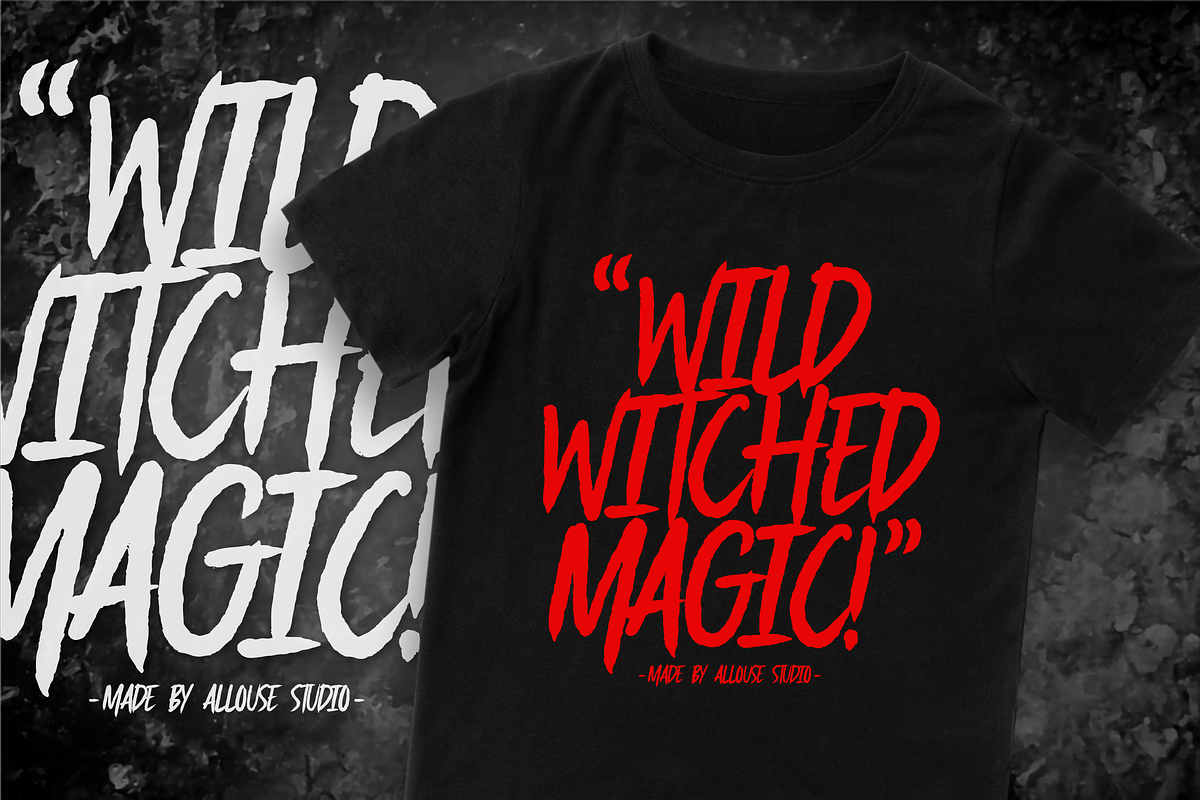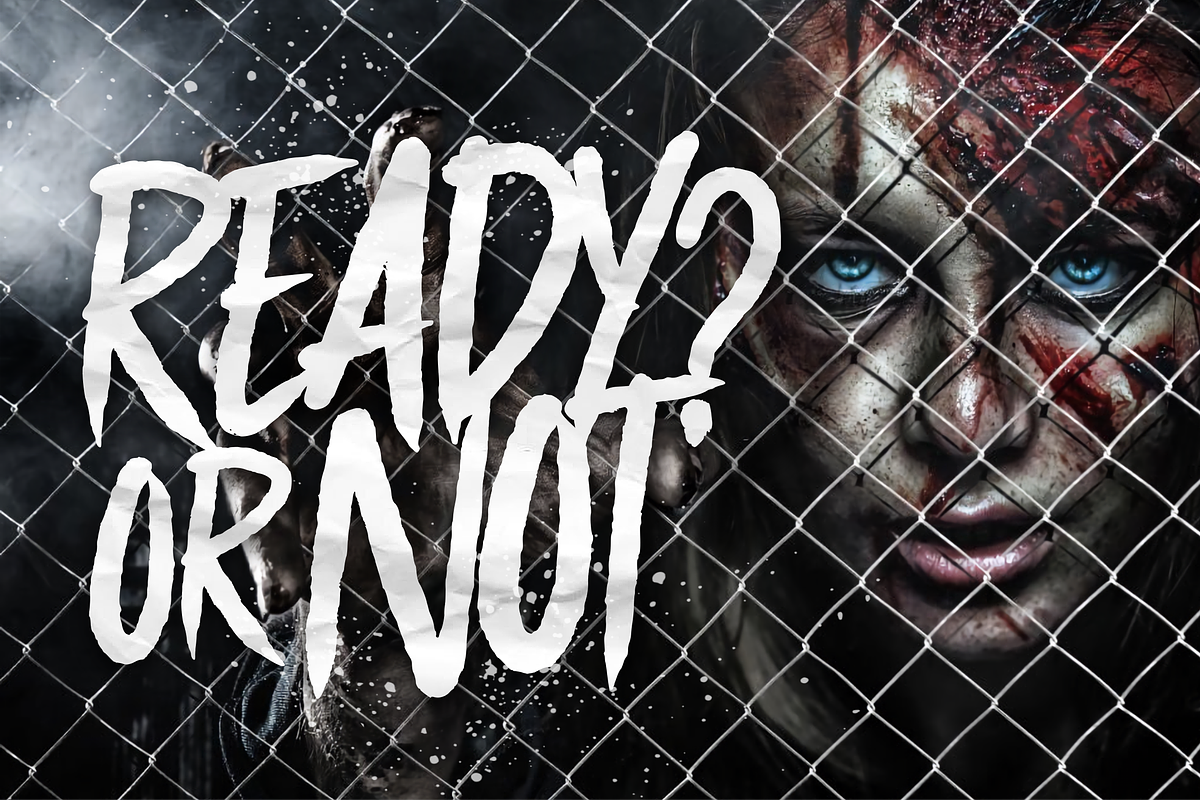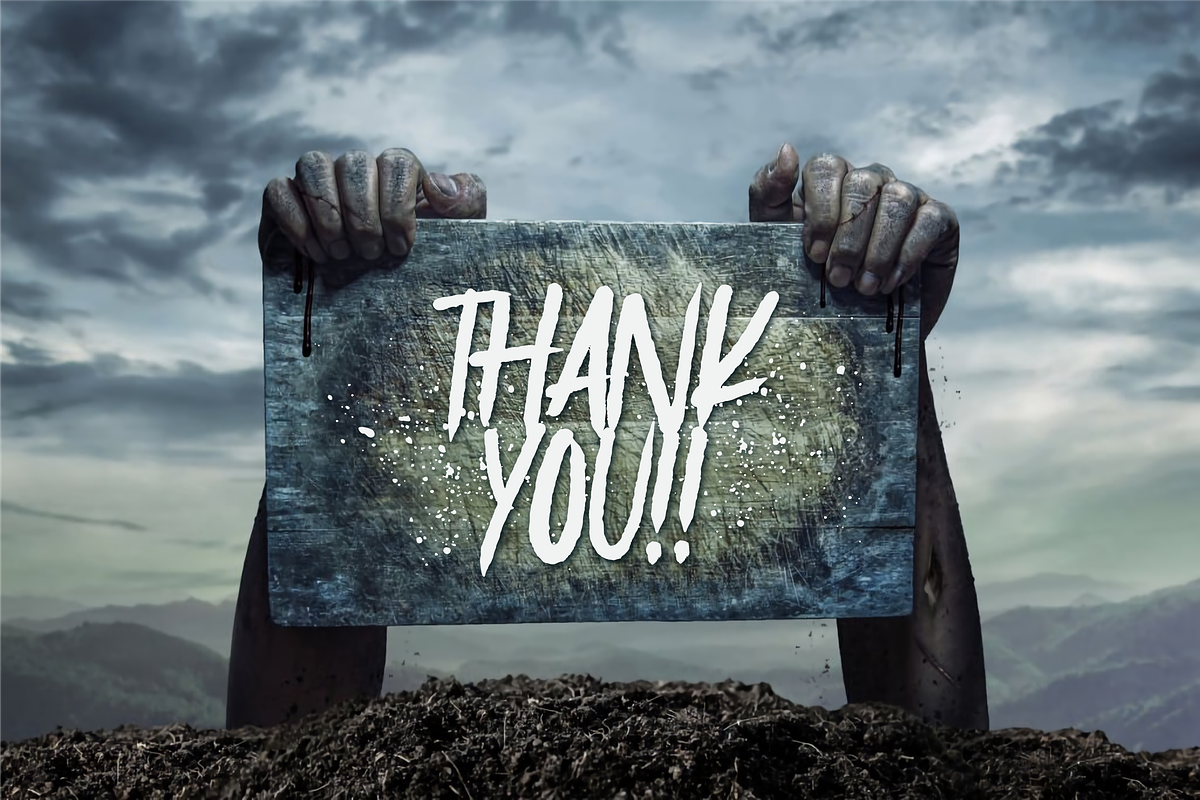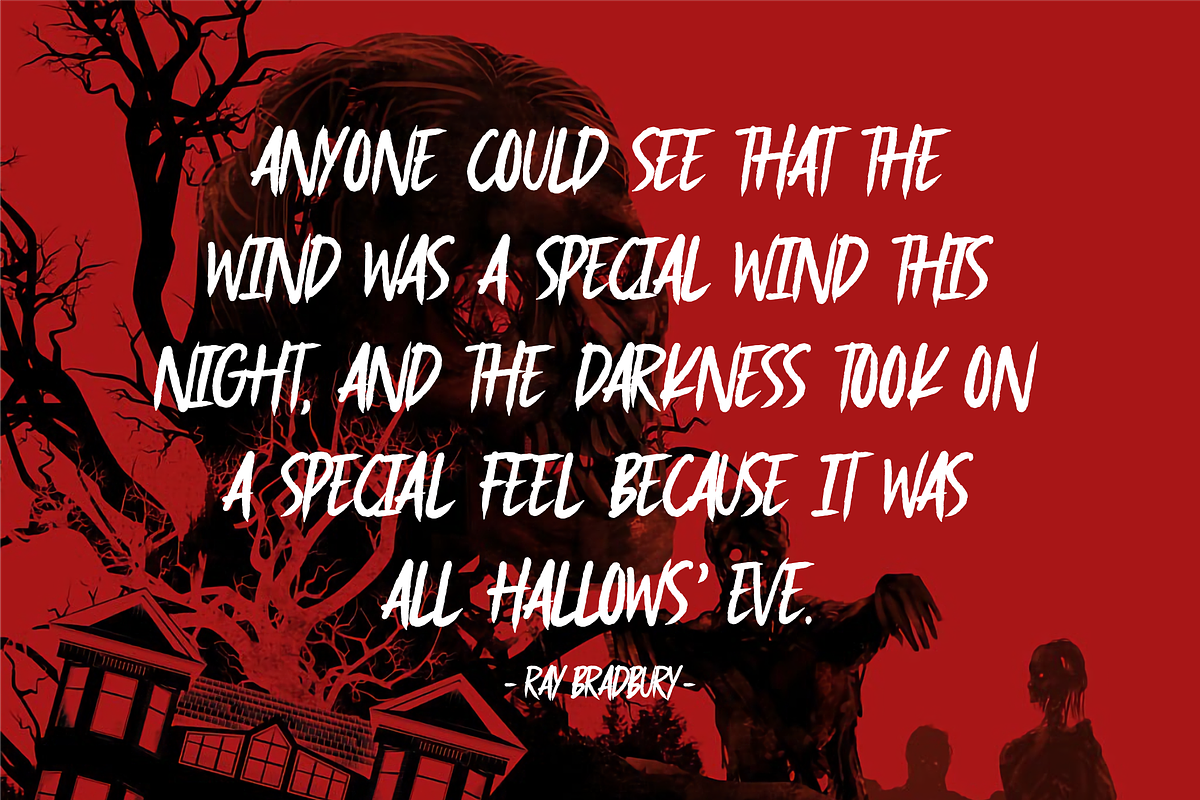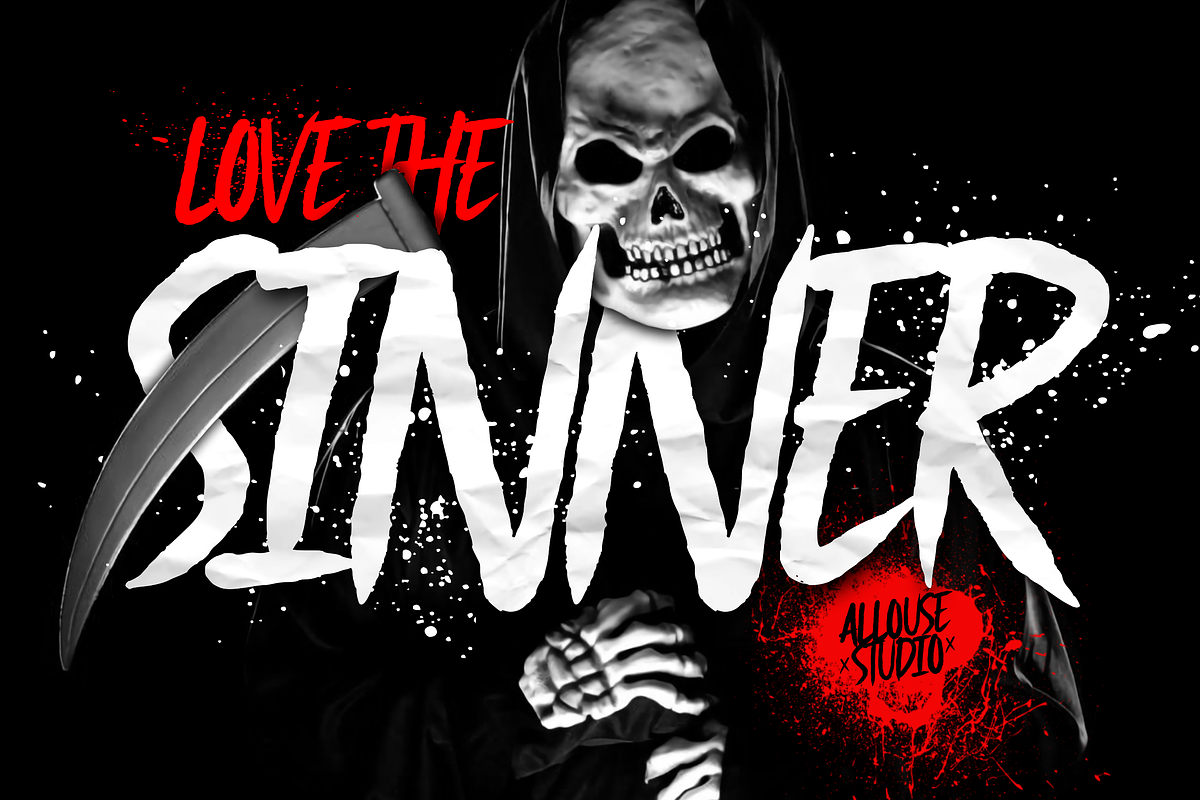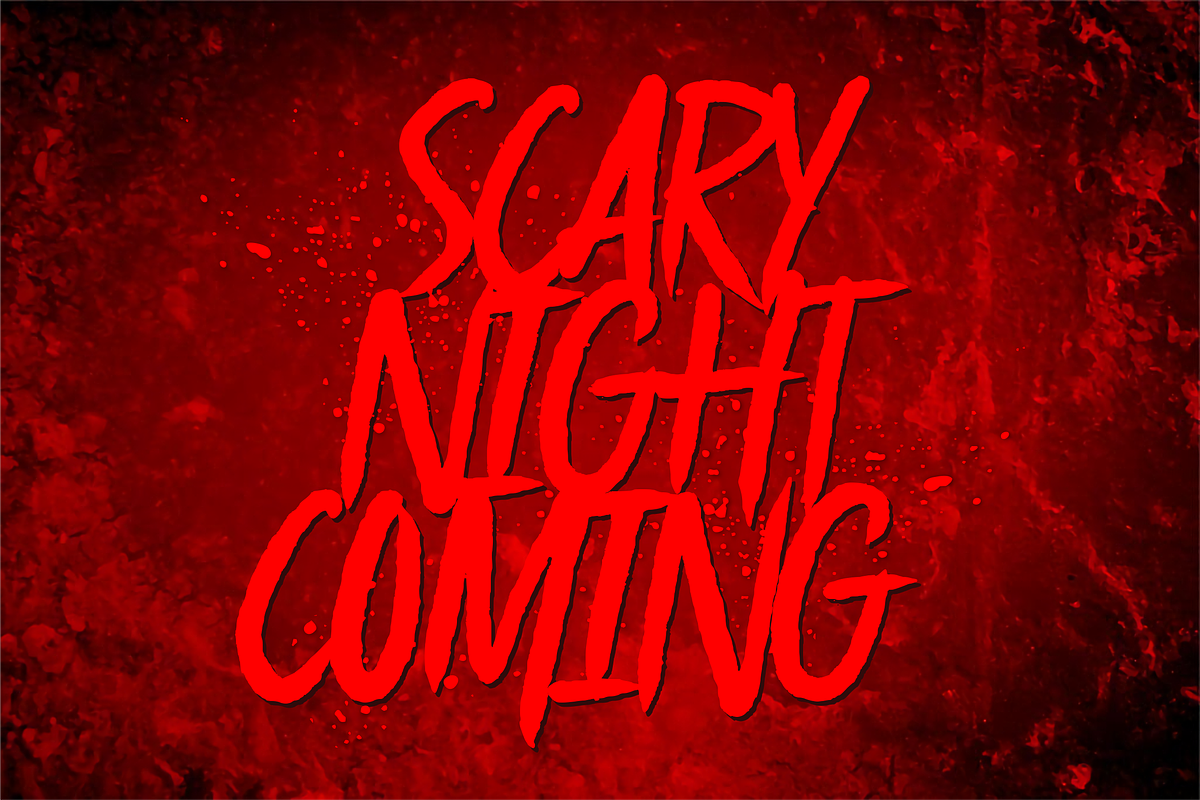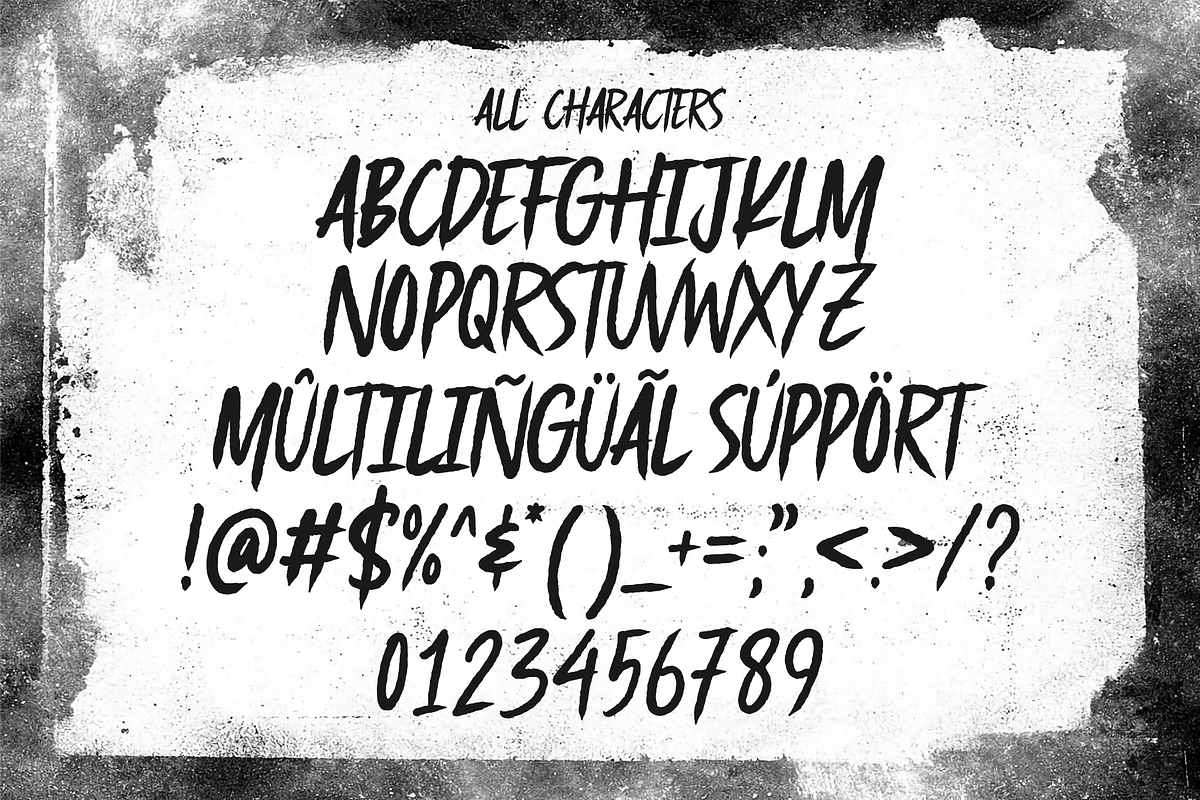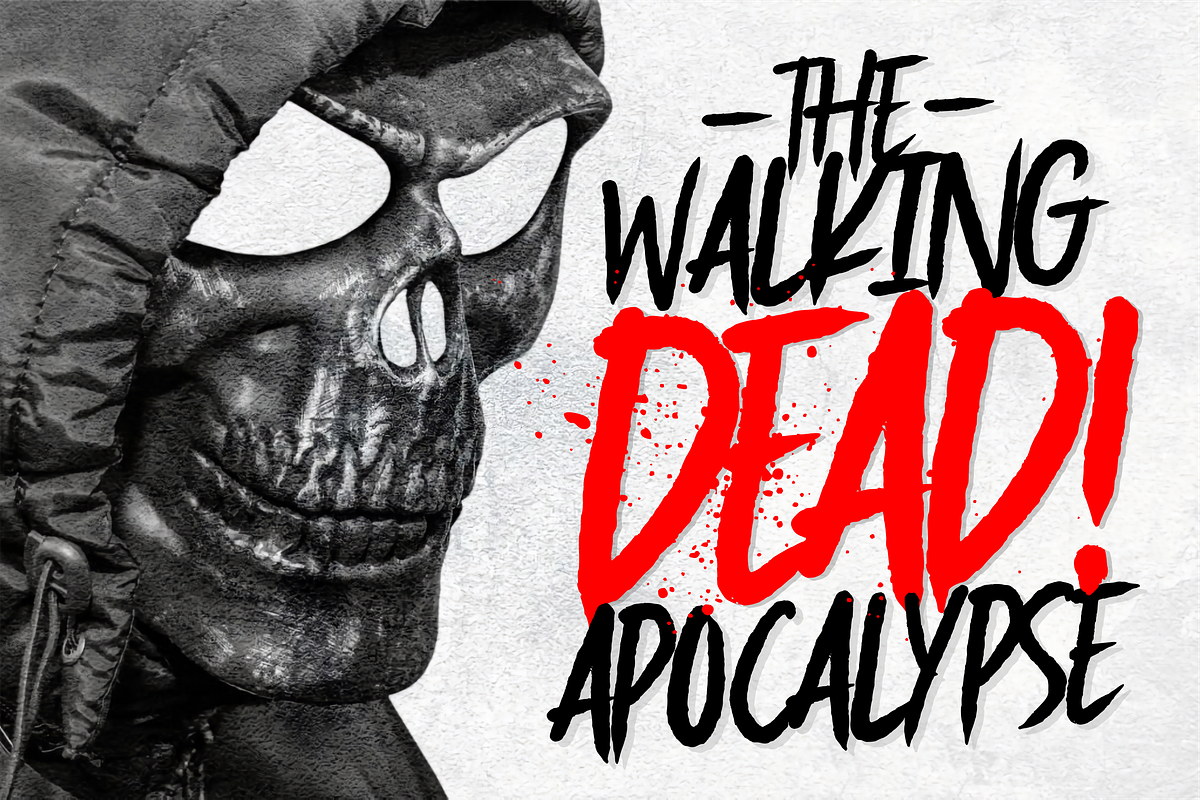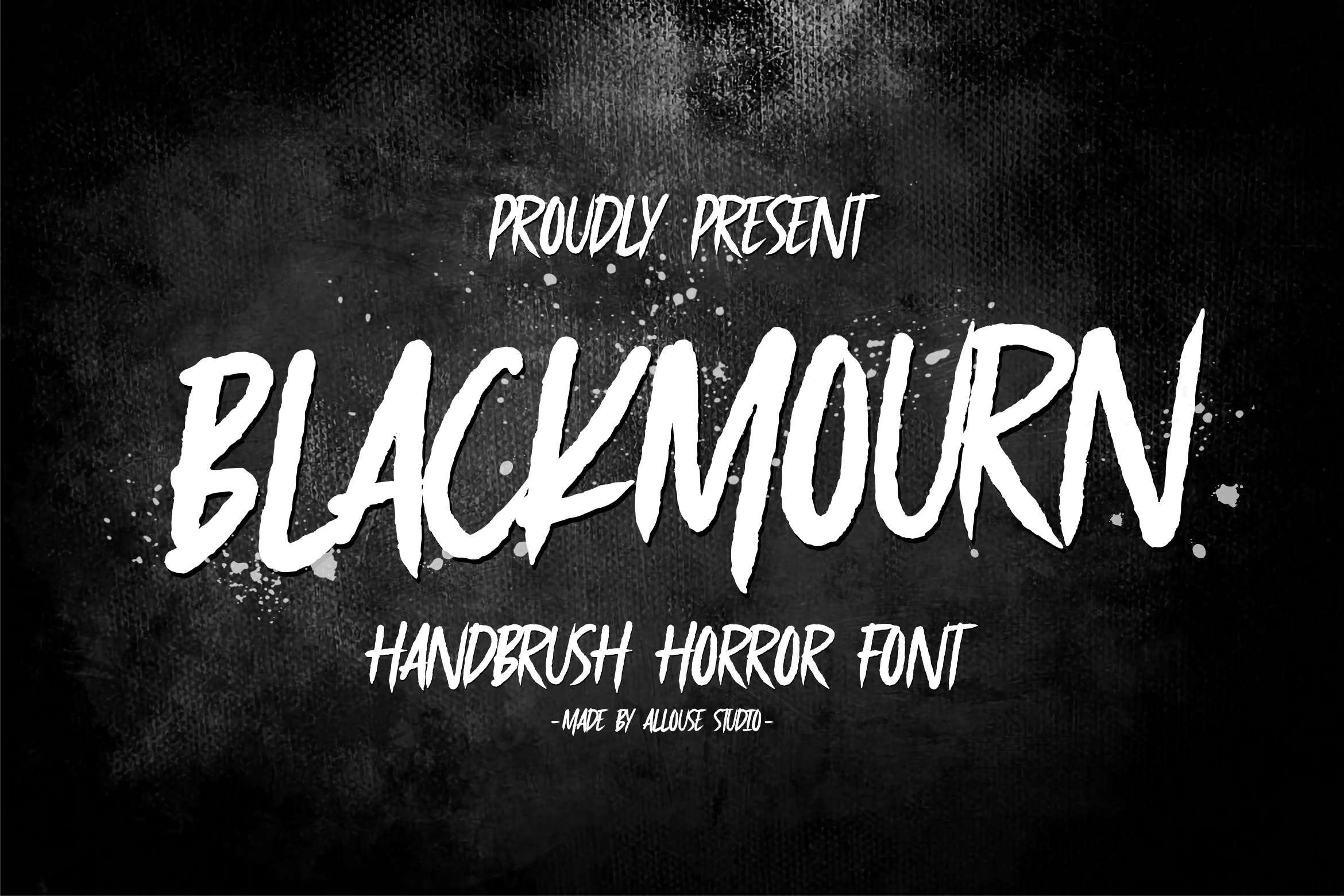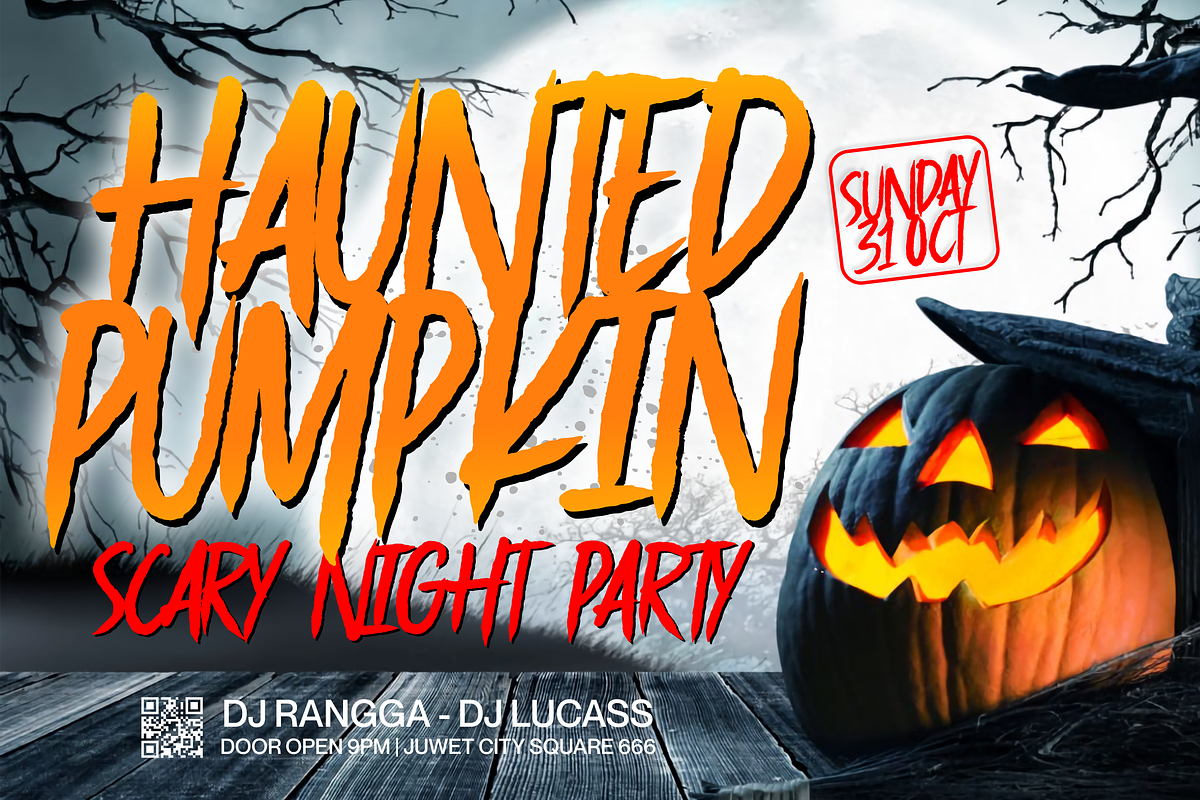
Blackmourn A Handbrush Horror Font
Proudly Presenting, Blackmourn A Handbrush Horror Font.
Blackmourn is perfect for any titles, logo, product packaging, branding project, megazine, social media, wedding, or just used to express words above the background.
Blackmourn also come with Multi-Lingual Support.